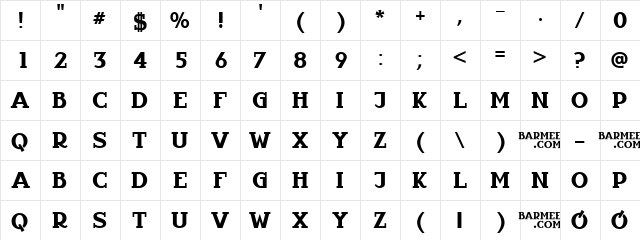
Infantyl Regular
Design Context for Infantyl Typeface
Infantyl is a composed and adaptable typeface that performs quietly and consistently across a wide range of design contexts.